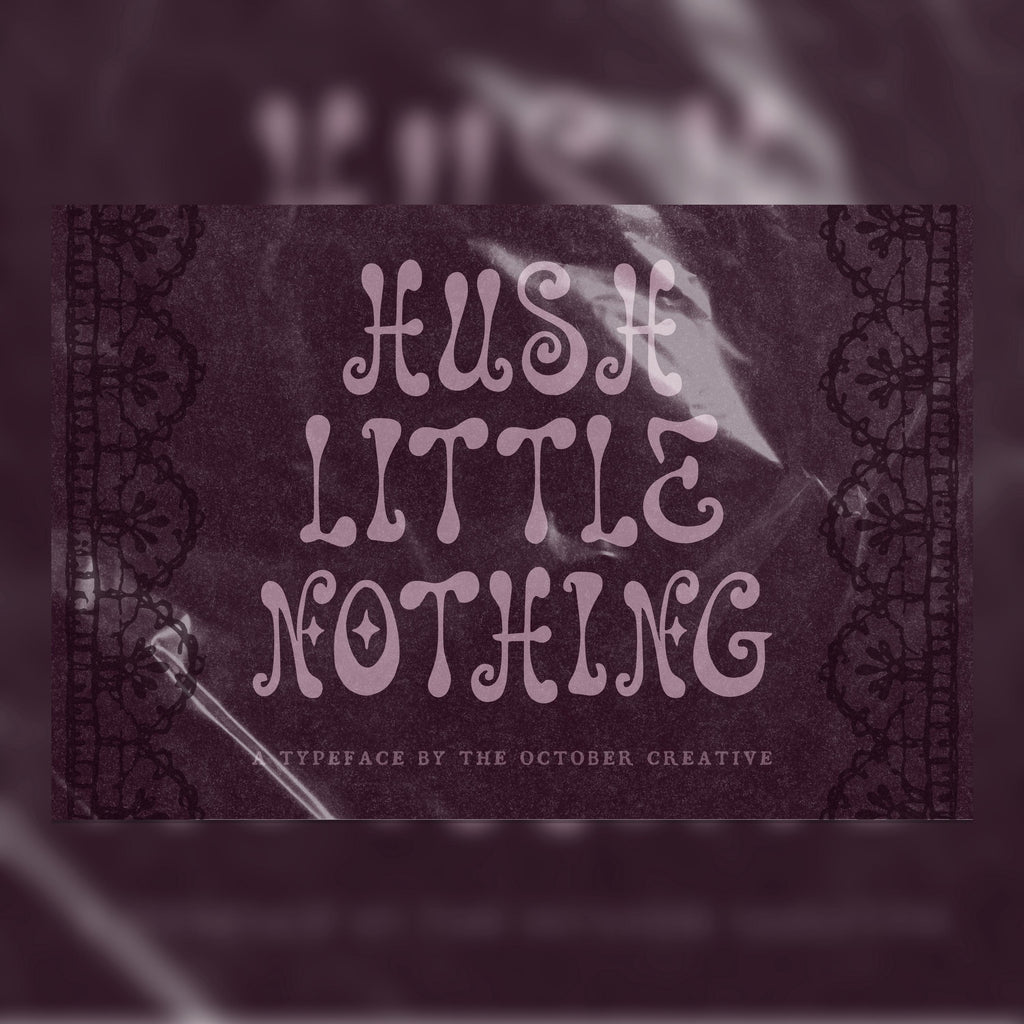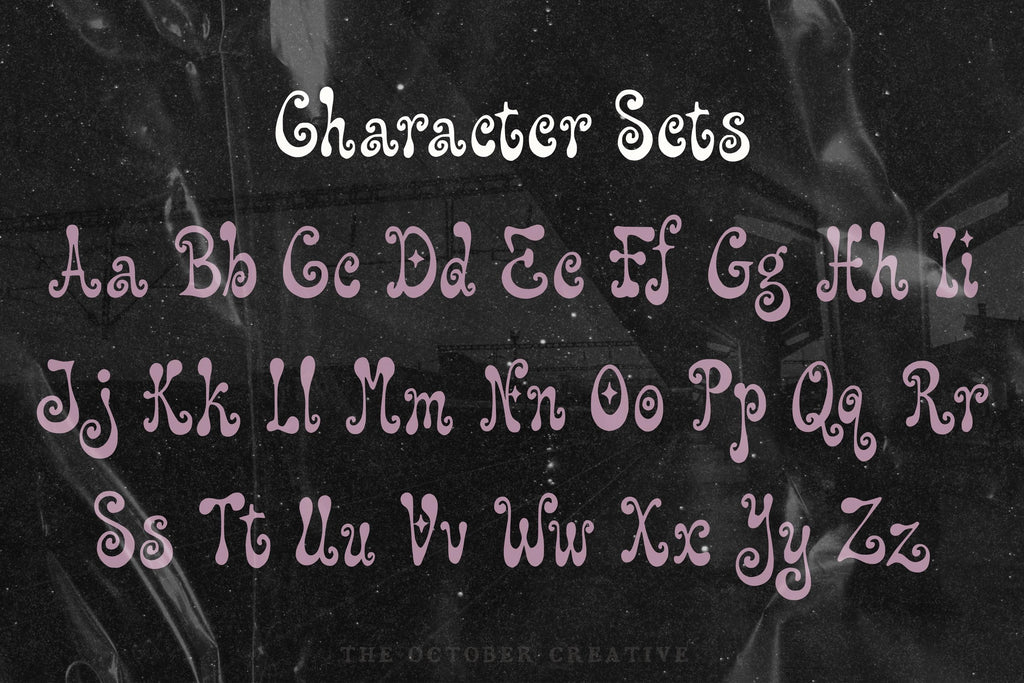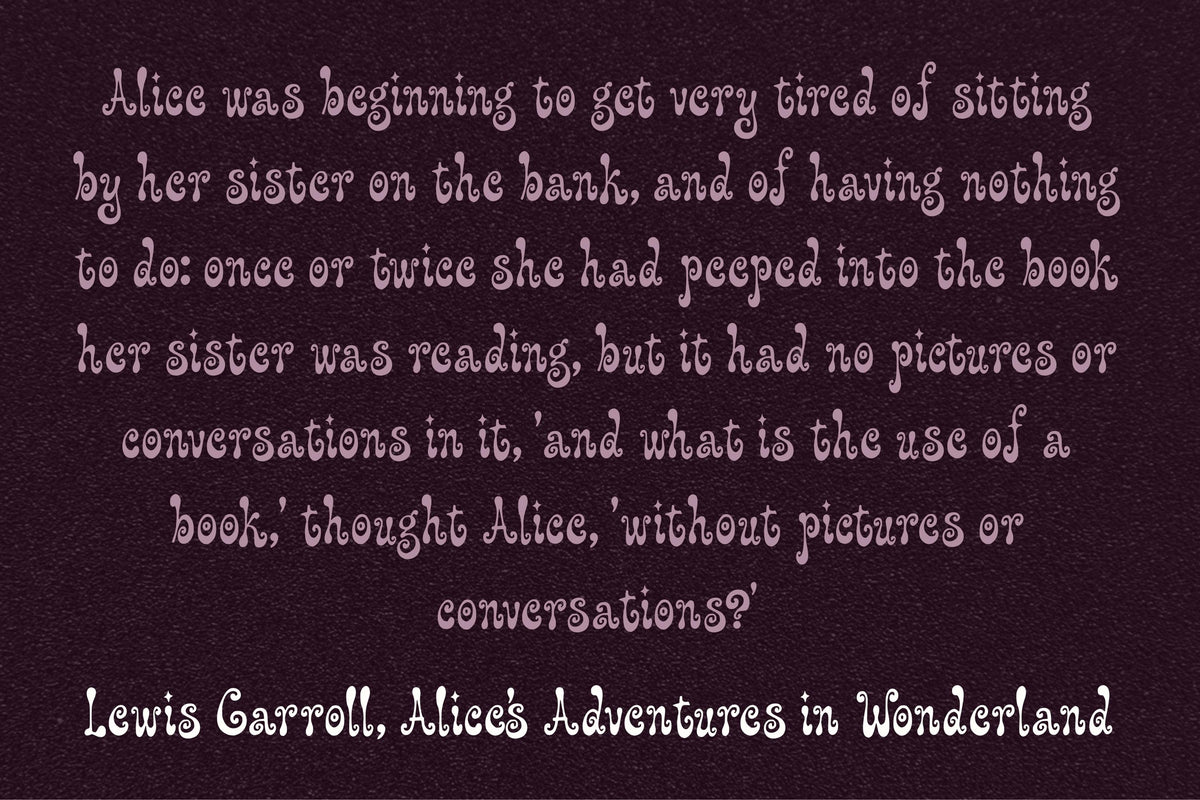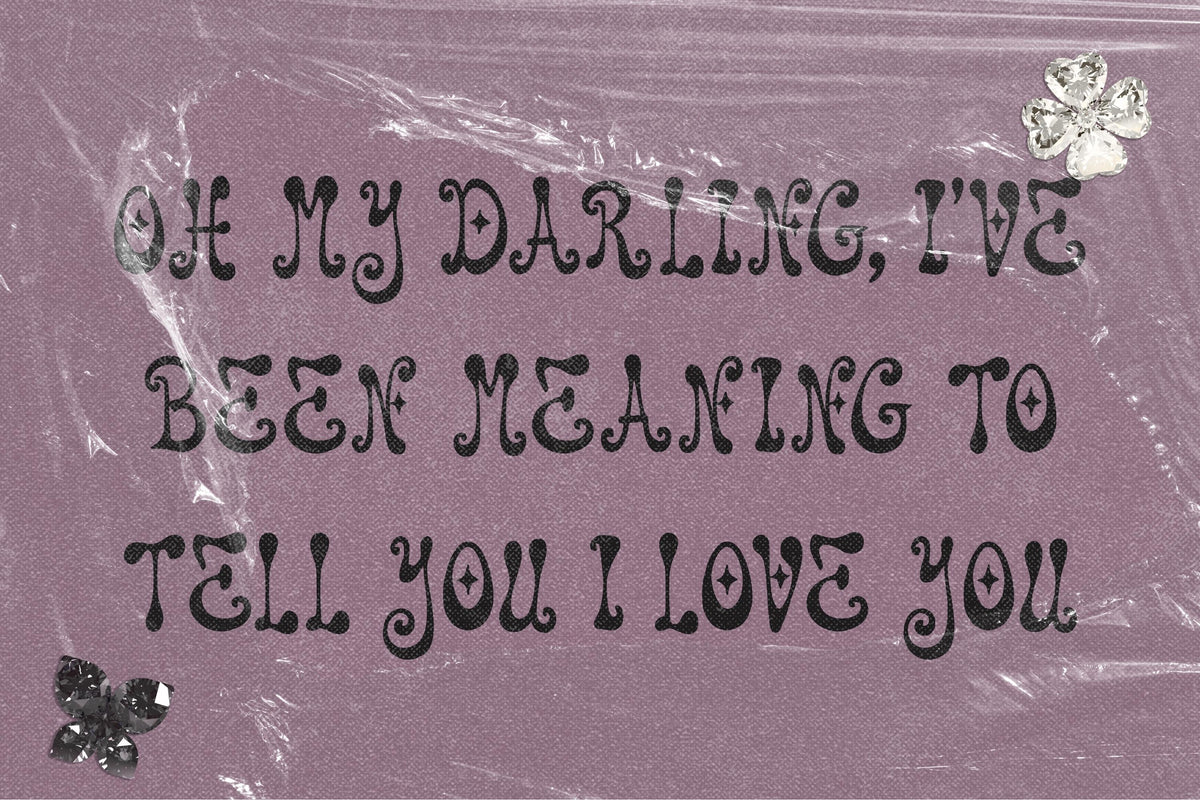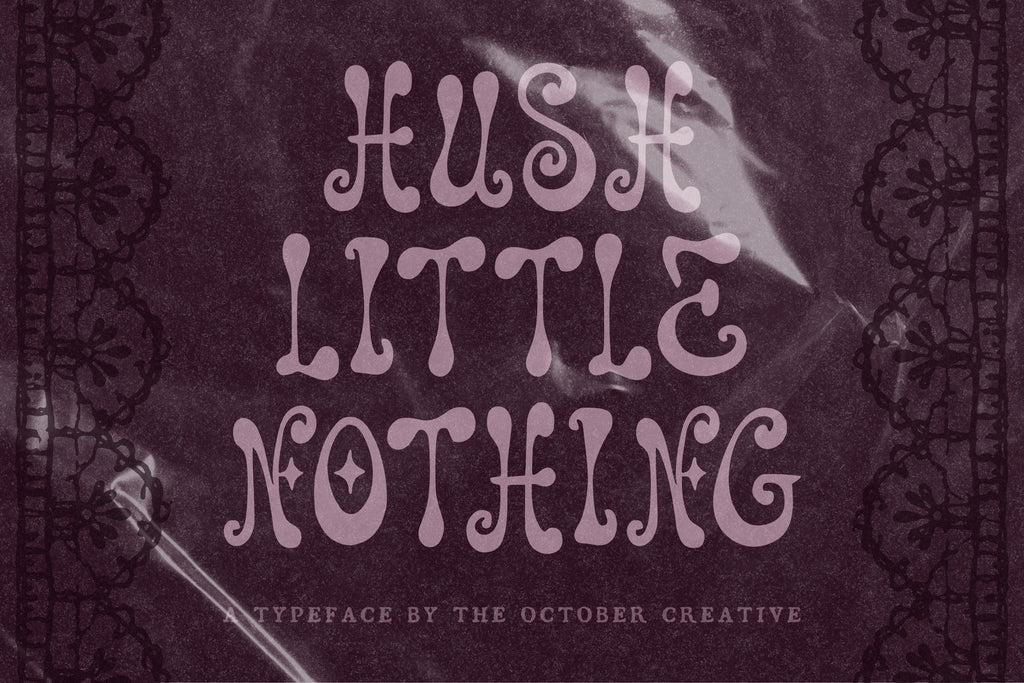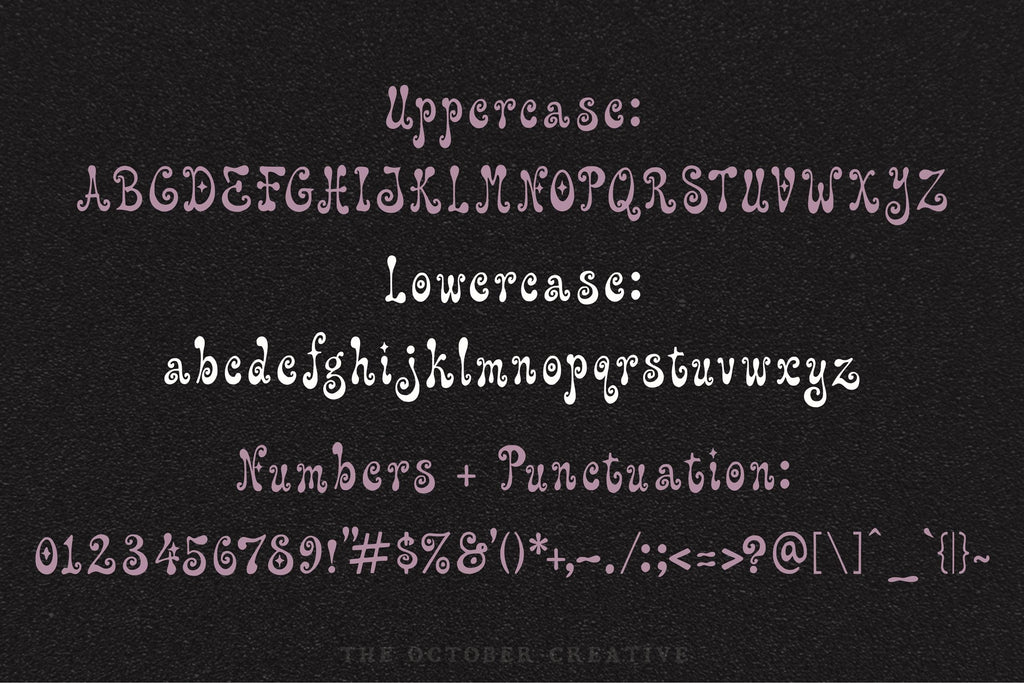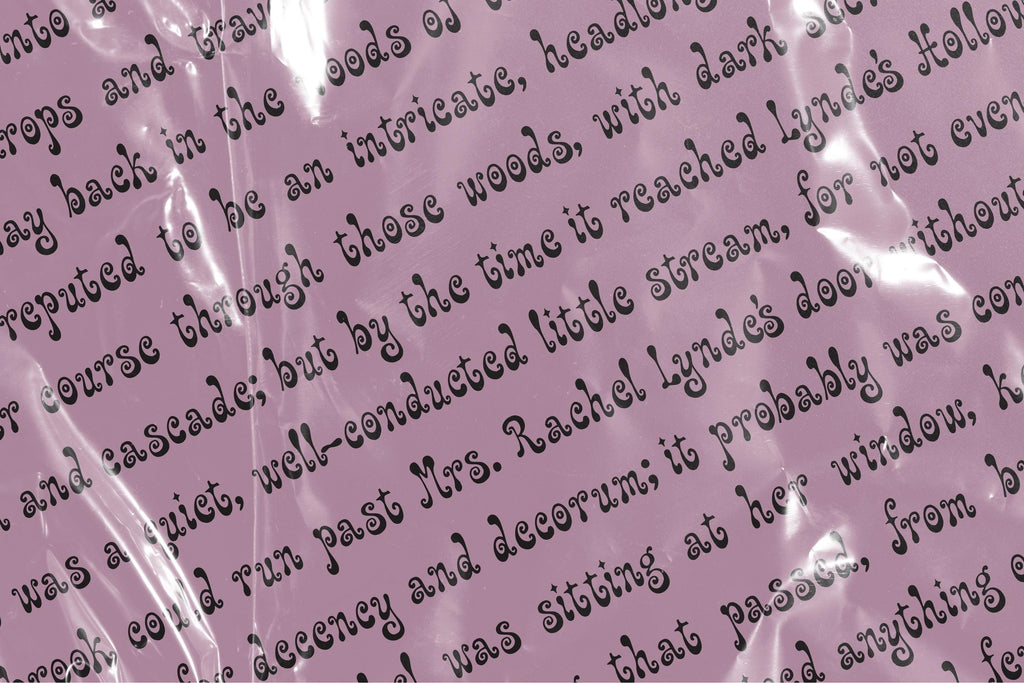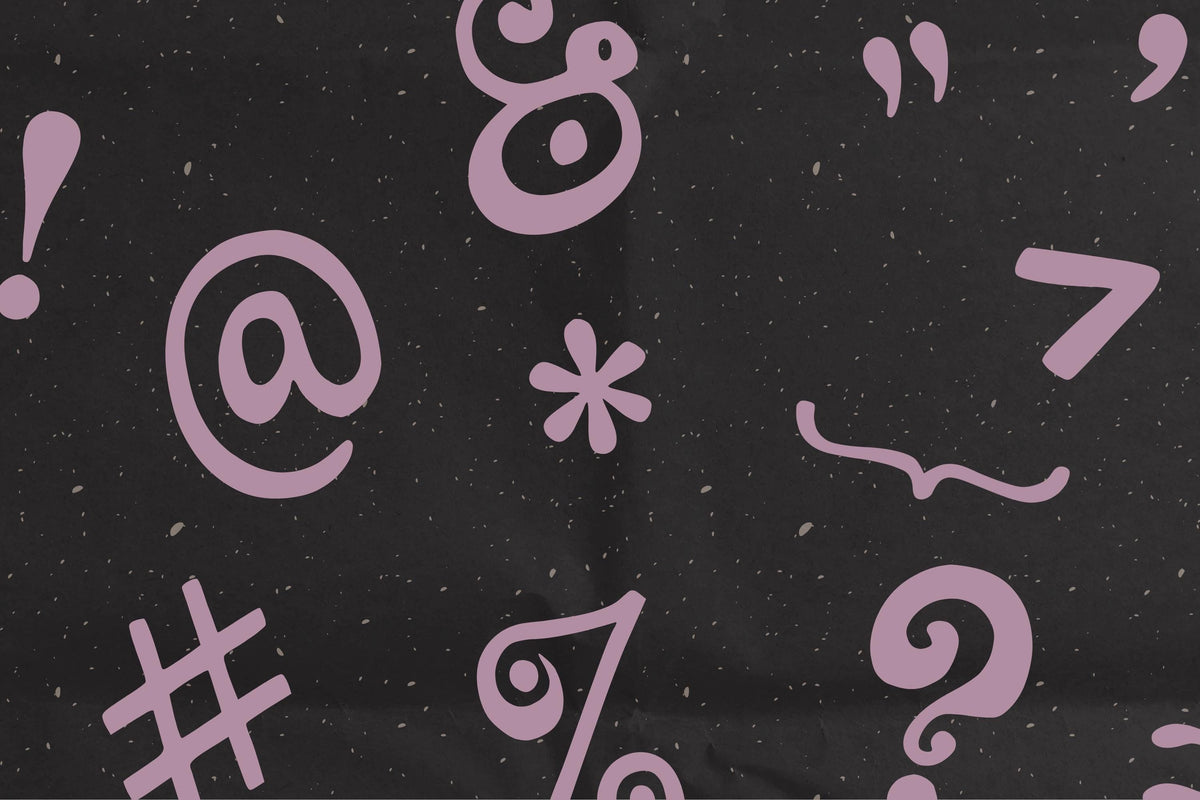
Hush Little Nothing Font
Hush Little Nothing wraps your words in chunky, rounded 70s lettering. Its generous curves look lovely on nursery prints, cheerful name signs, and little messages you want to hang on the wall.